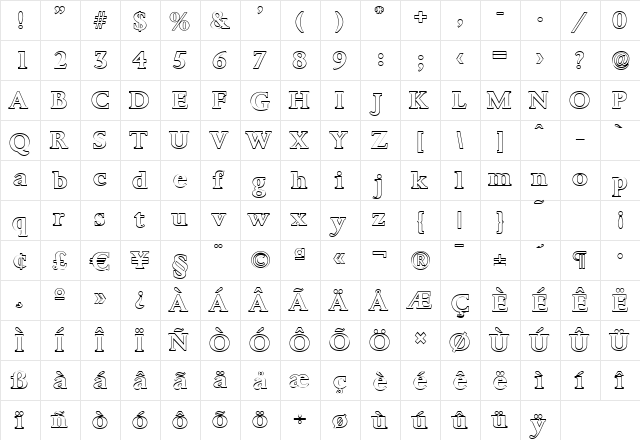
TobyBeckerOutline Bold
Design Context for TobyBeckerOutline Typeface
TobyBeckerOutline is built around its visual character rather than neutral utility — its distinctive forms are designed to make an impression at display sizes. Its bold stroke weight gives it real presence on the page.
Font Pairing: Pair with a clean neutral sans-serif for body copy to let TobyBeckerOutline's character lead without overwhelming the composition.
Pro Tip: Treat TobyBeckerOutline as the centrepiece of your typographic hierarchy. One strong heading set in a decorative face can carry an entire layout.